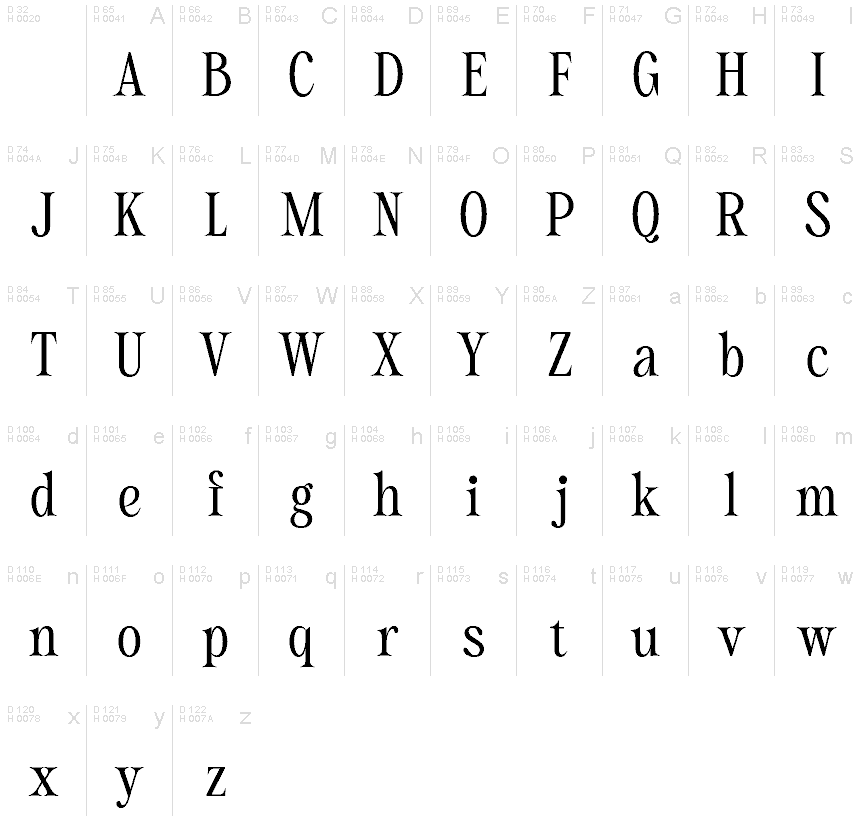
CS Dustine Regular Demo
CS Dustine font is a free serif font designed by Craft Supply Co. With condensed lettering and strong legibility, the elegant typeface does magic with minimal features. The classic and traditional design is put to the advantage thanks to stylish serifs that never fail to be noticed.